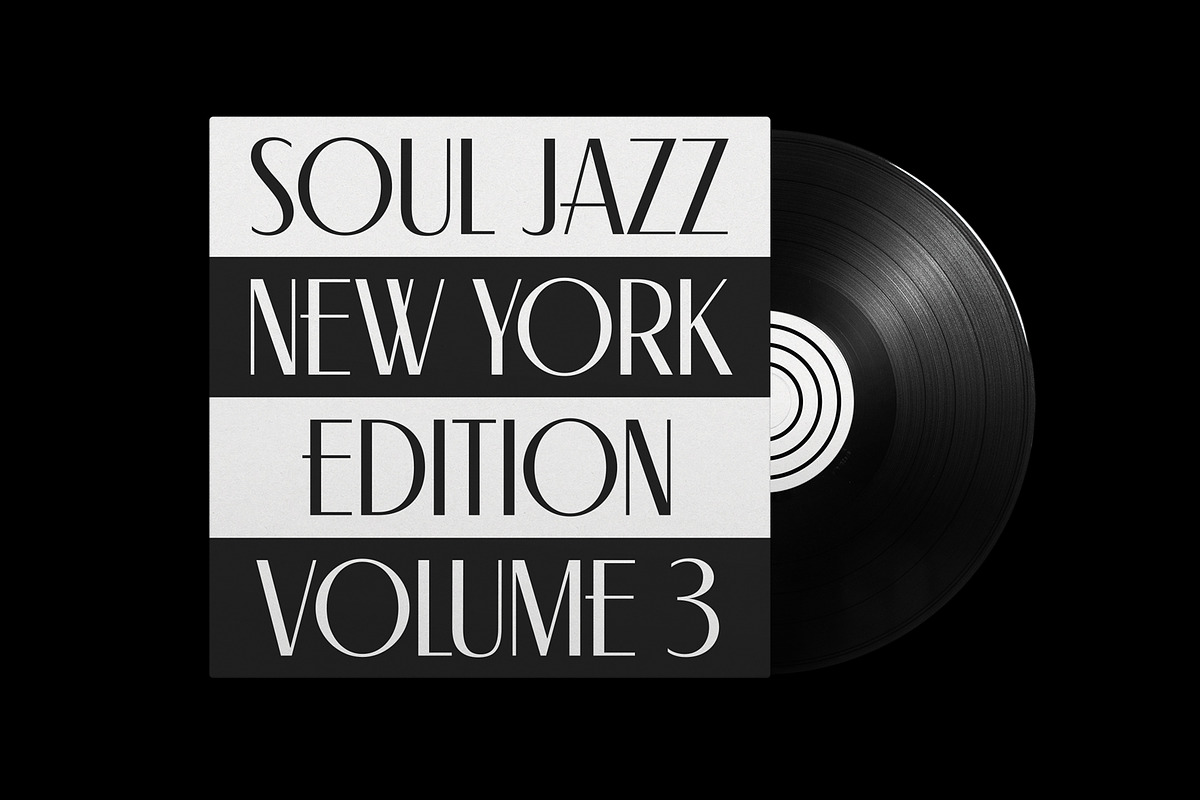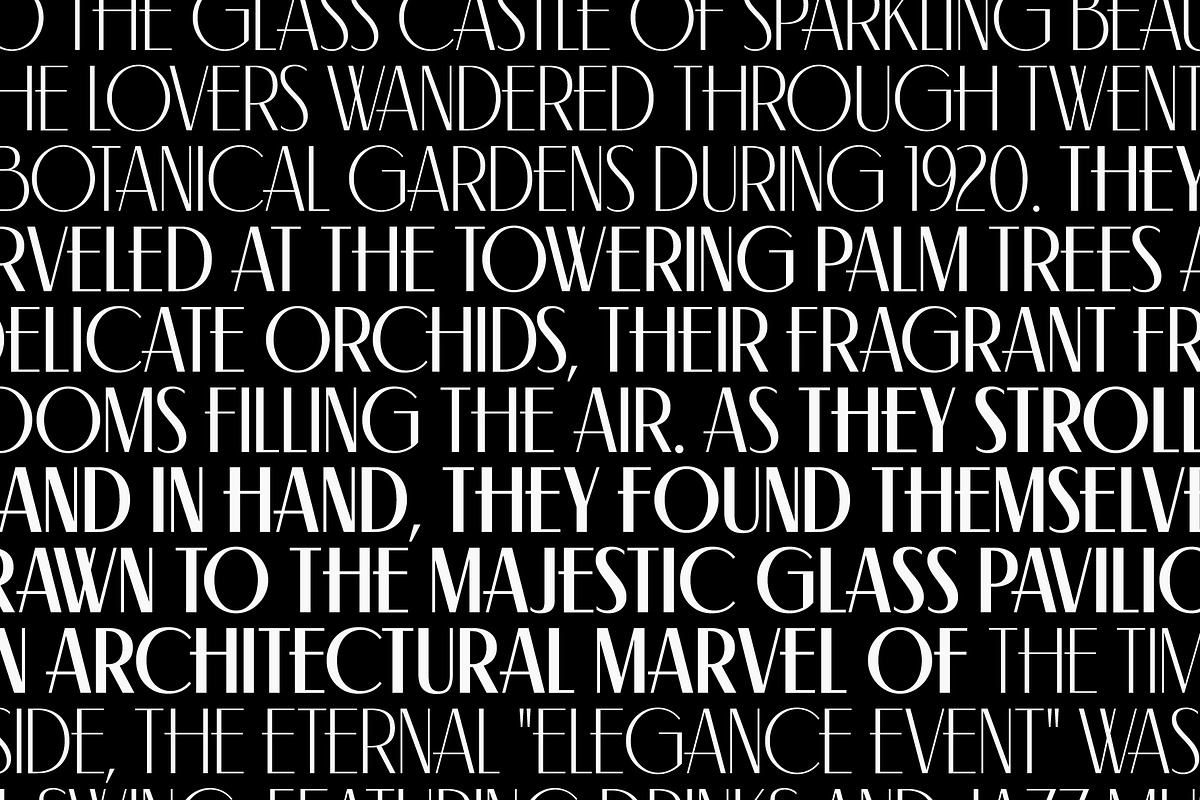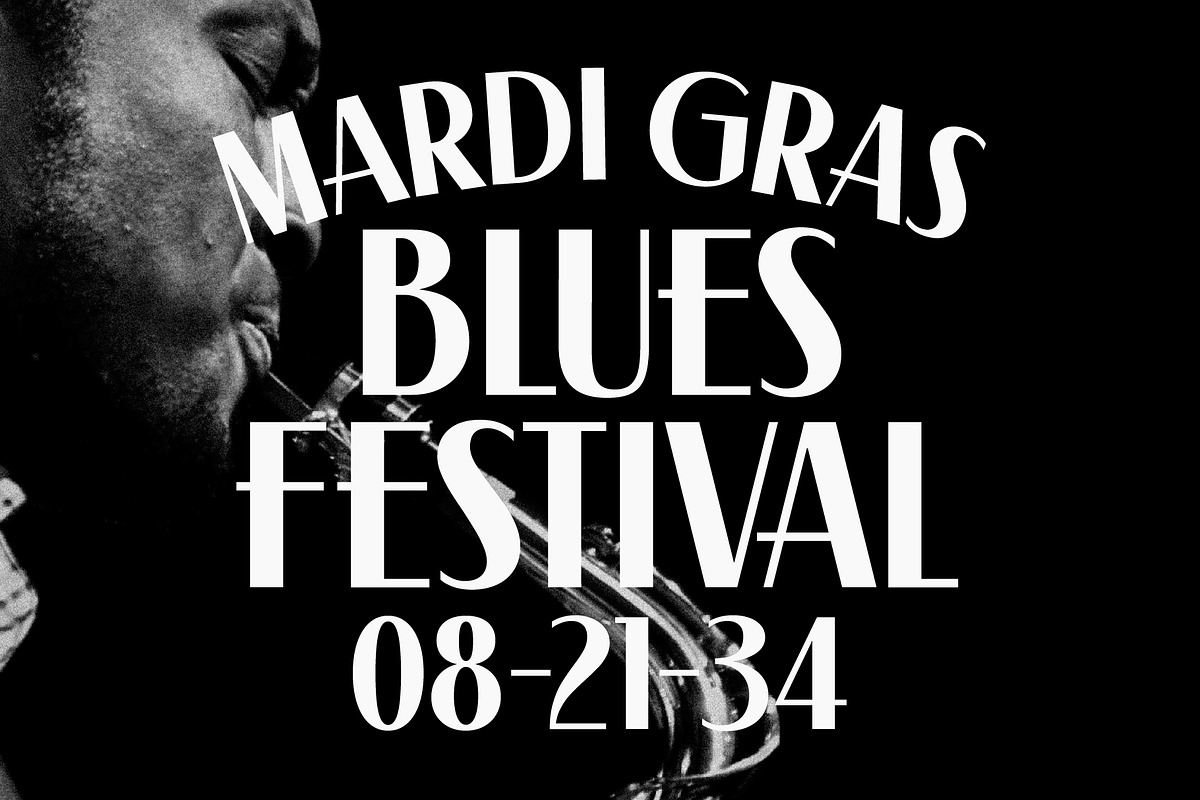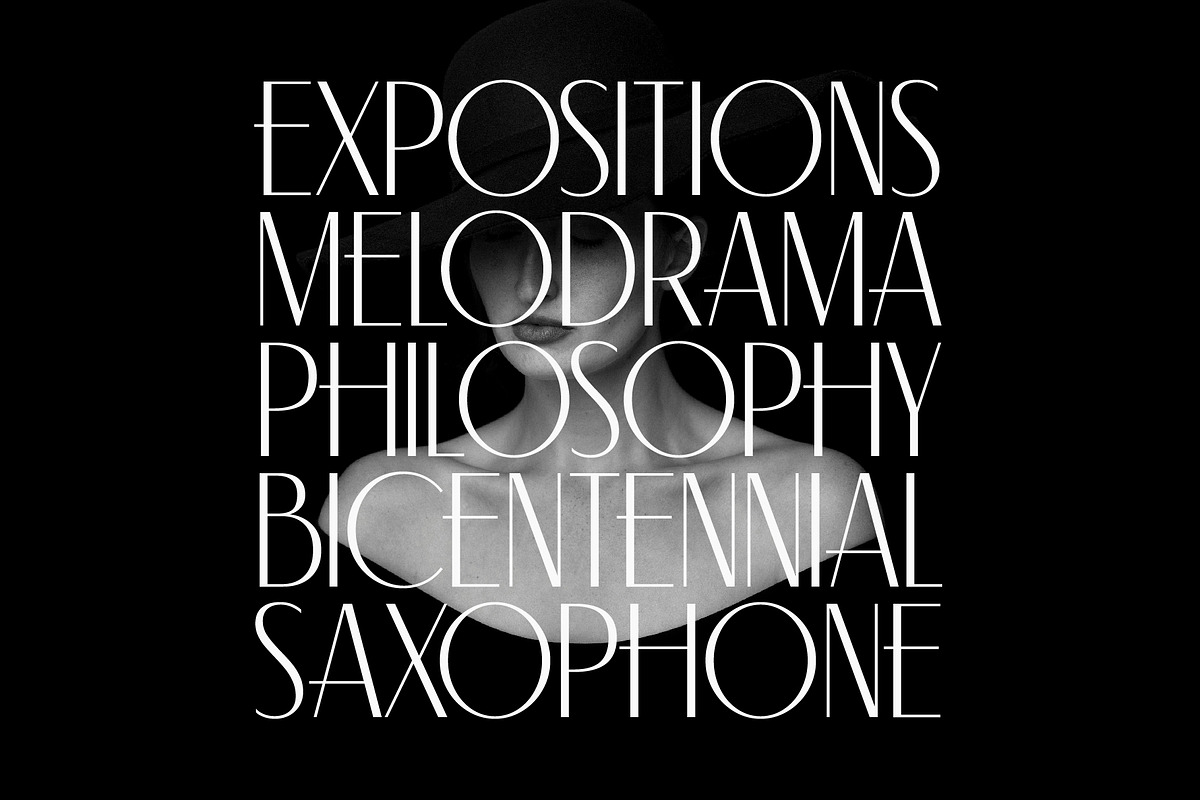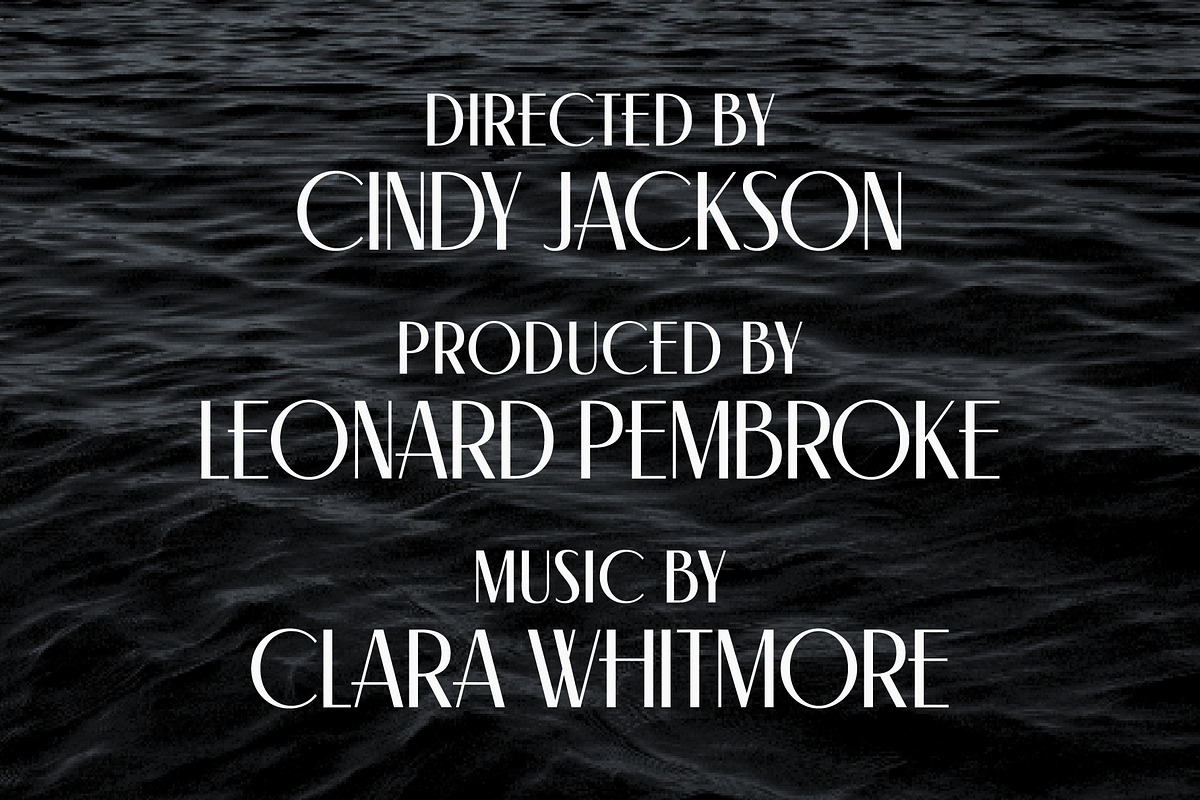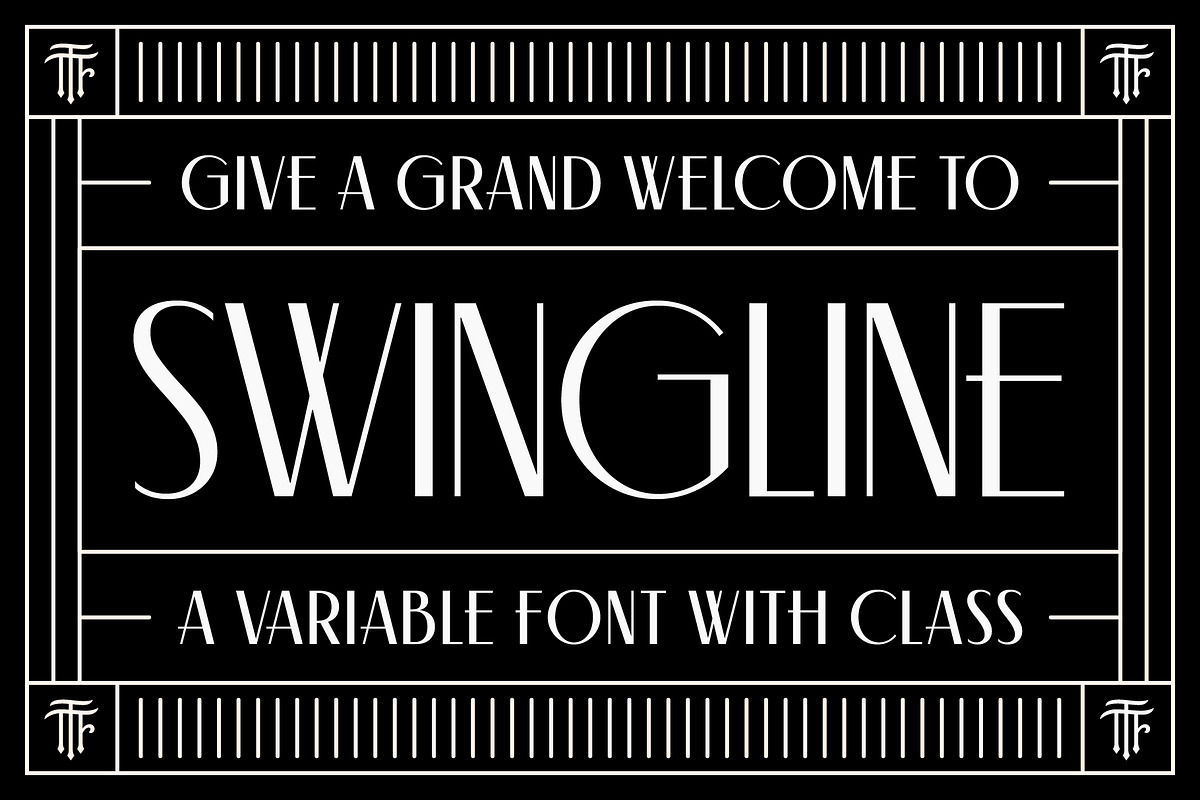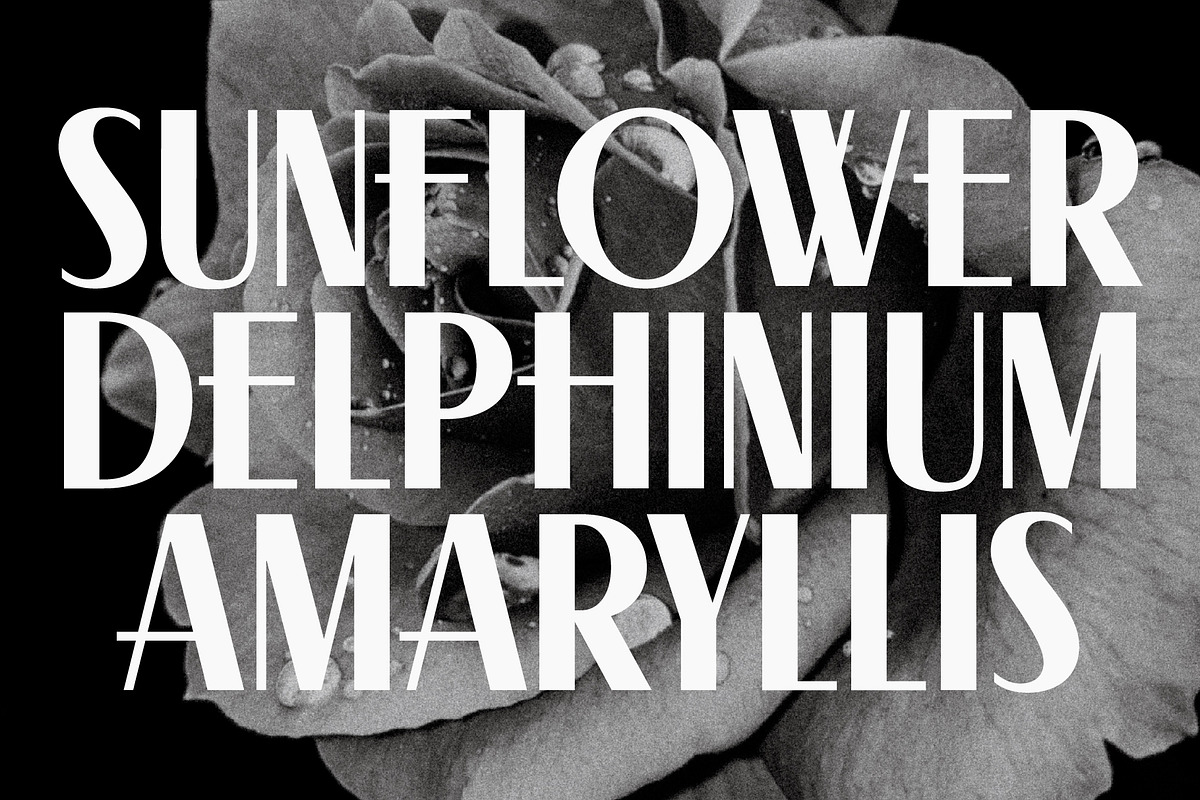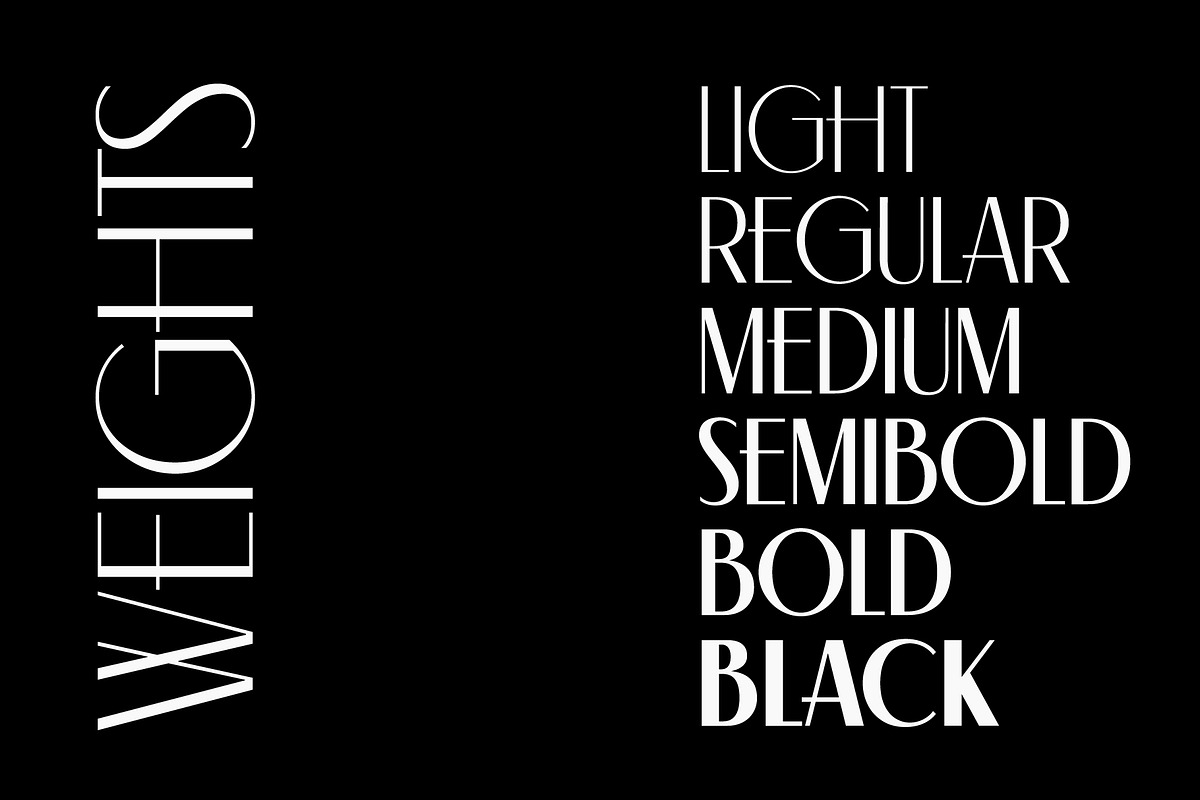
Swingline - Variable 1930s Font
Introducing Swingline, a meticulously crafted variable typeface inspired by the elegance of the 1930s. With five exquisite weights—light, regular, medium, semibold, bold, and black—Swingline adapts beautifully to a range of projects, including magazine covers, poster designs, signage, logos, film credits, and beyond. Elevate your creative endeavors with the sophisticated charm of Swingline.